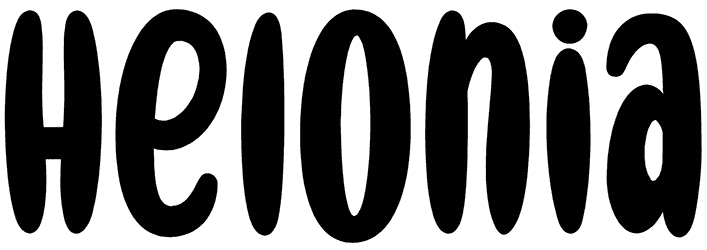
Helonia Font
When your plan is to capture a lot of interest, using a whimsical and cute letterform would be a nice pickup. Helonia font, with its tall and bulky characters, can provide you with a great chance to achieve your aim. This cartoon font can adorn your new birthday invitation card in a cool way and show off your unique taste.